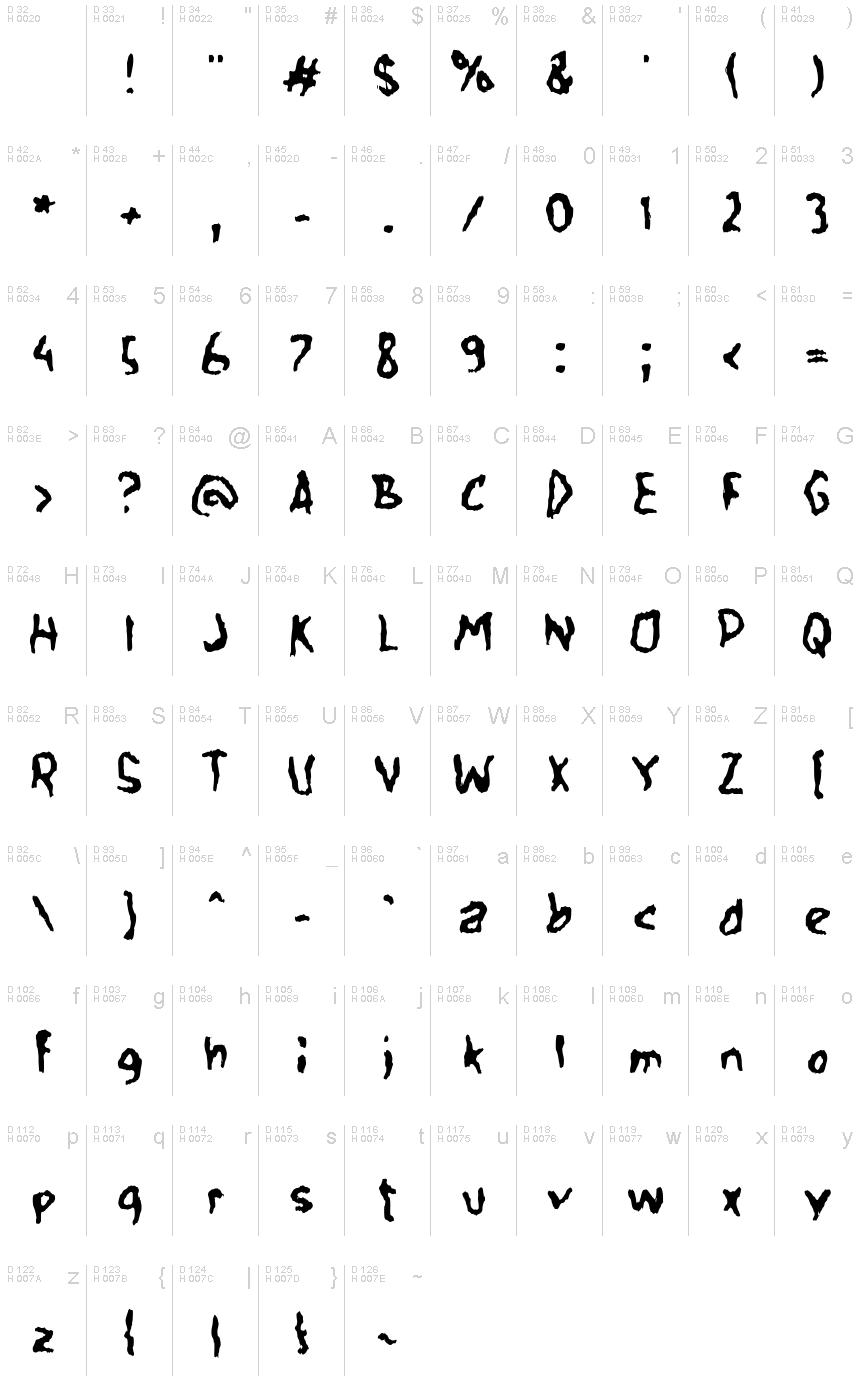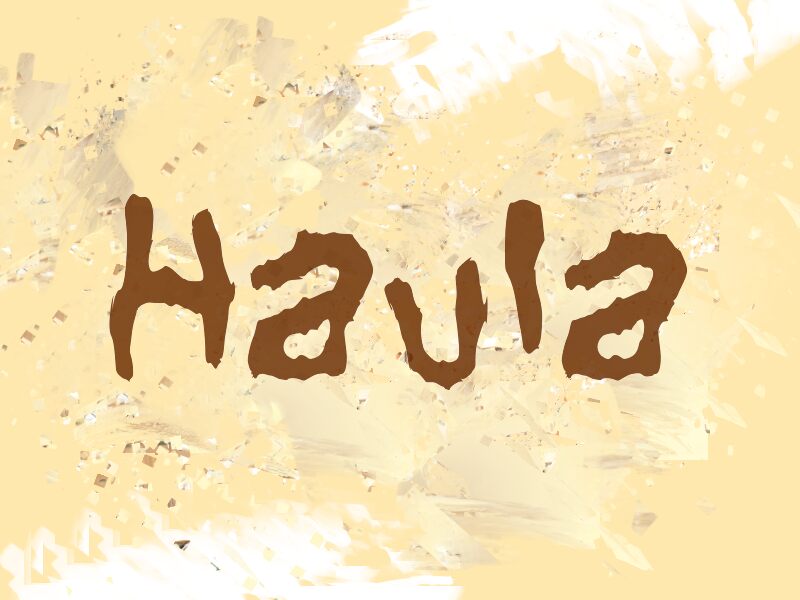
Halua
Halua font by wep is a distorted display free font with a jagged irregular style. The bold characters repeat dynamic shapes that showcase an informal and playful appearance. However, the font remains professional in set tone with its expressive and artistic flair.
Use Halua for eye catching headlines, logotypes, branding projects, and packaging designs. Printed items like posters and magazines are also great places to use it in addition to apparel printing on t-shirts or shoes!